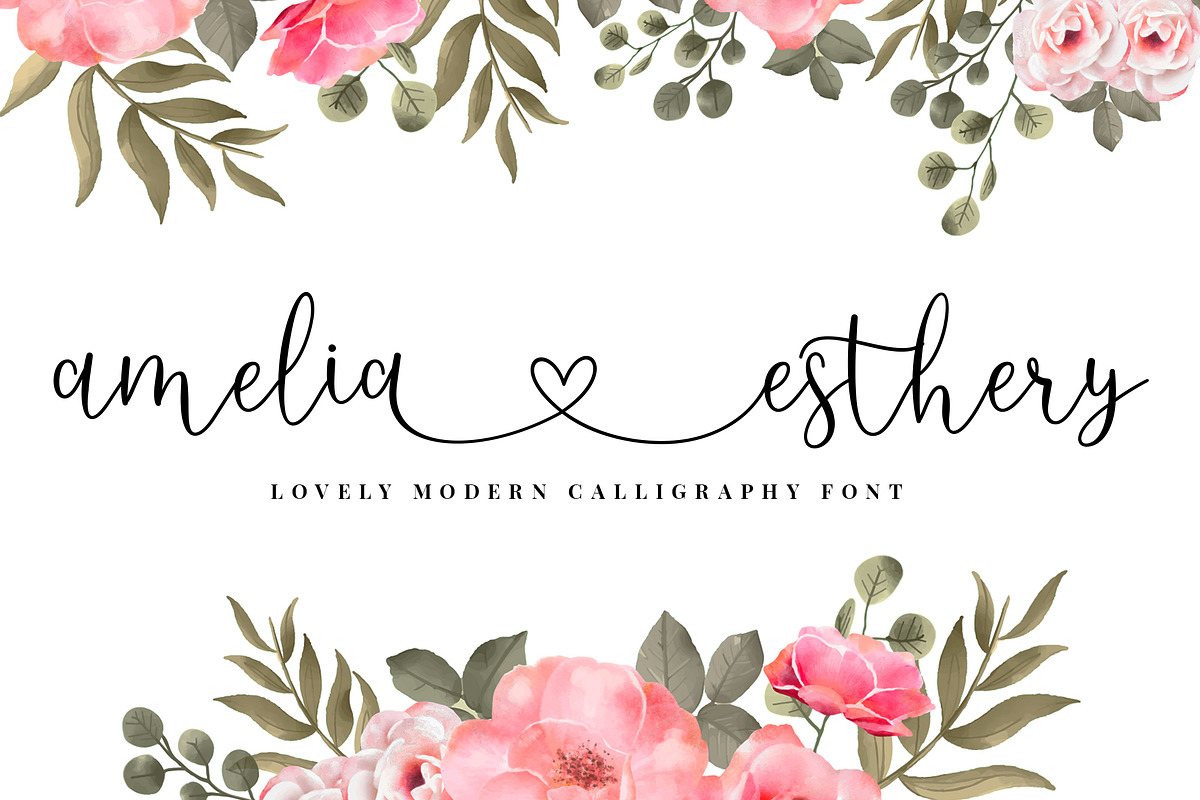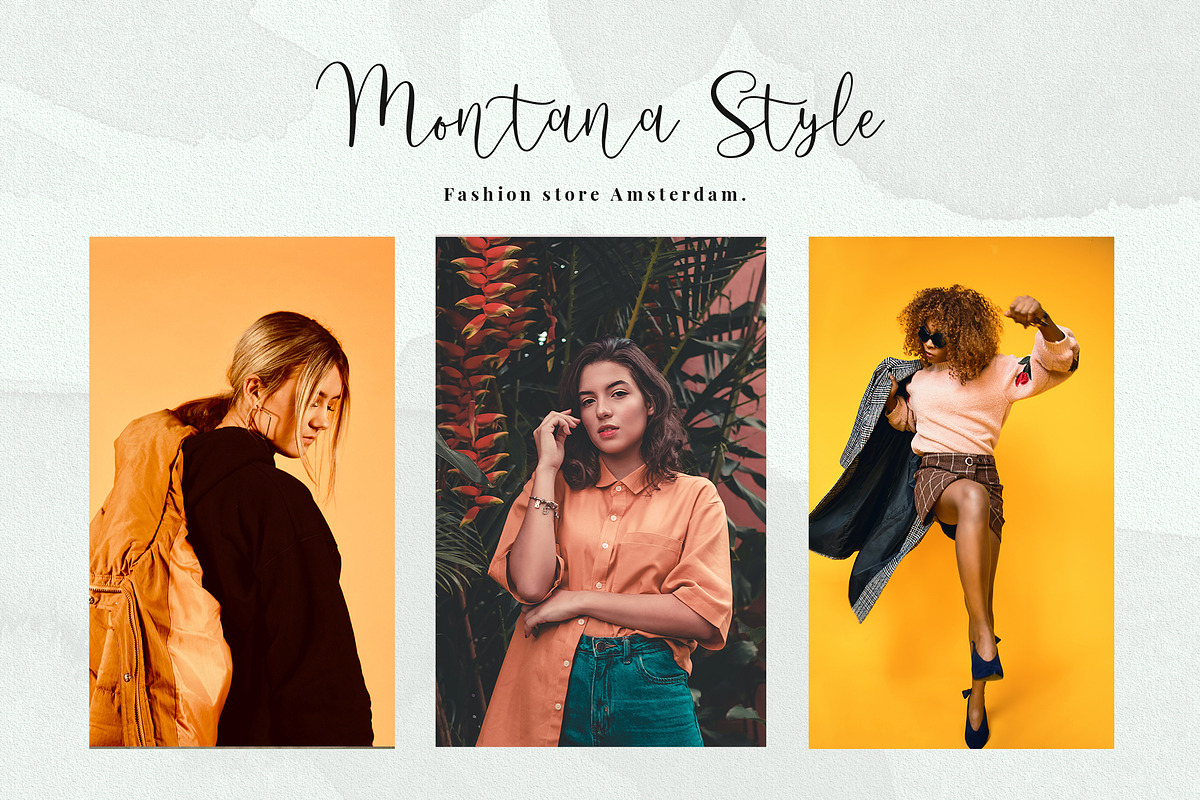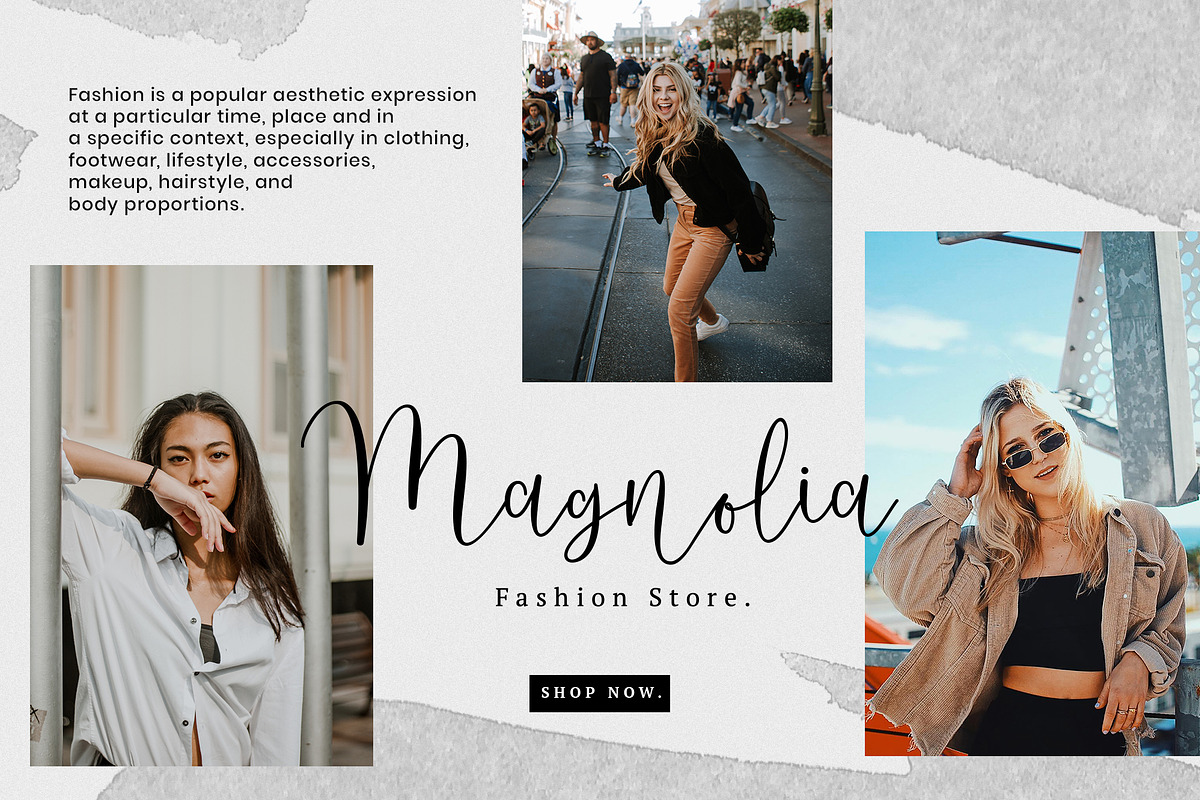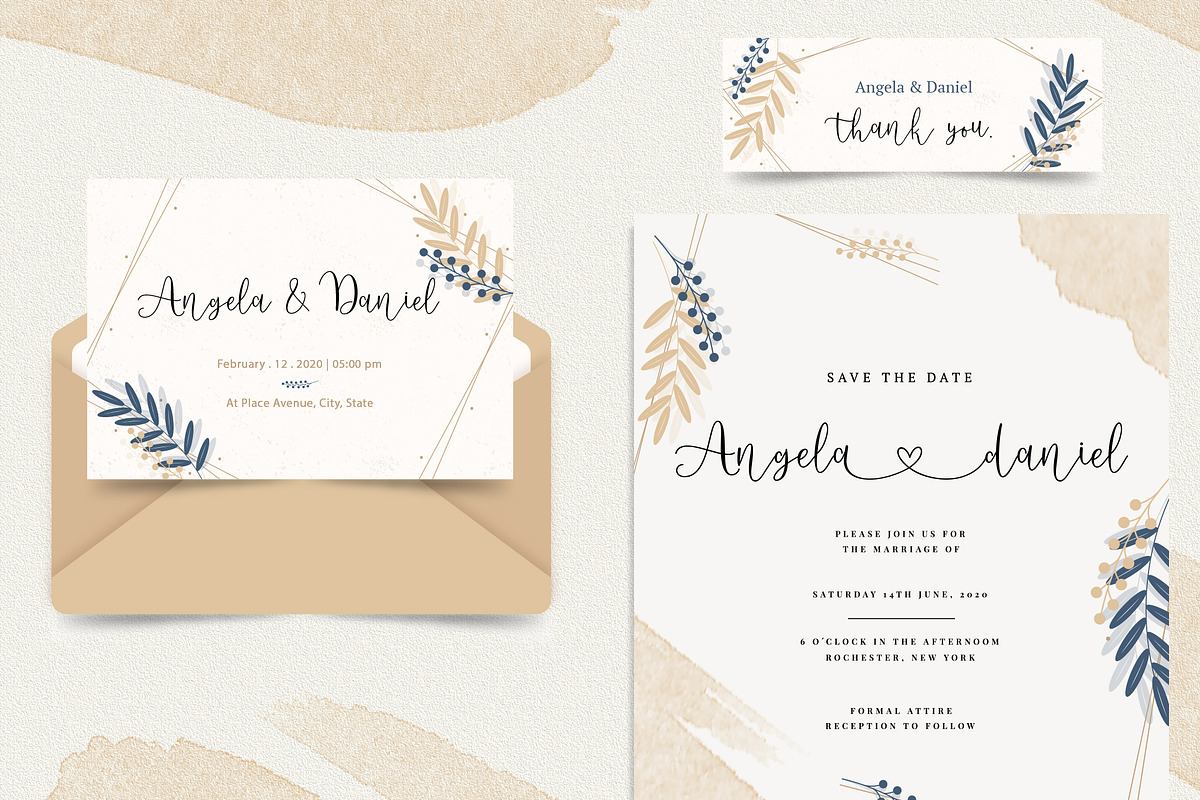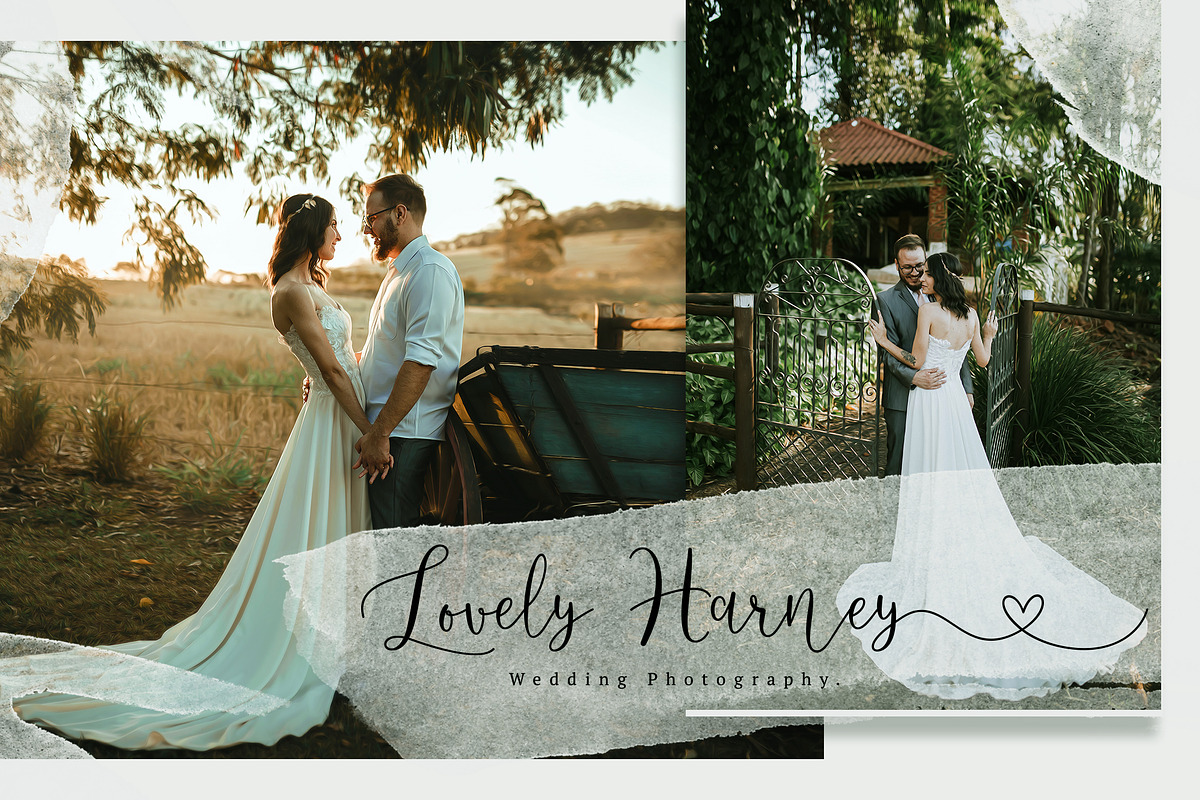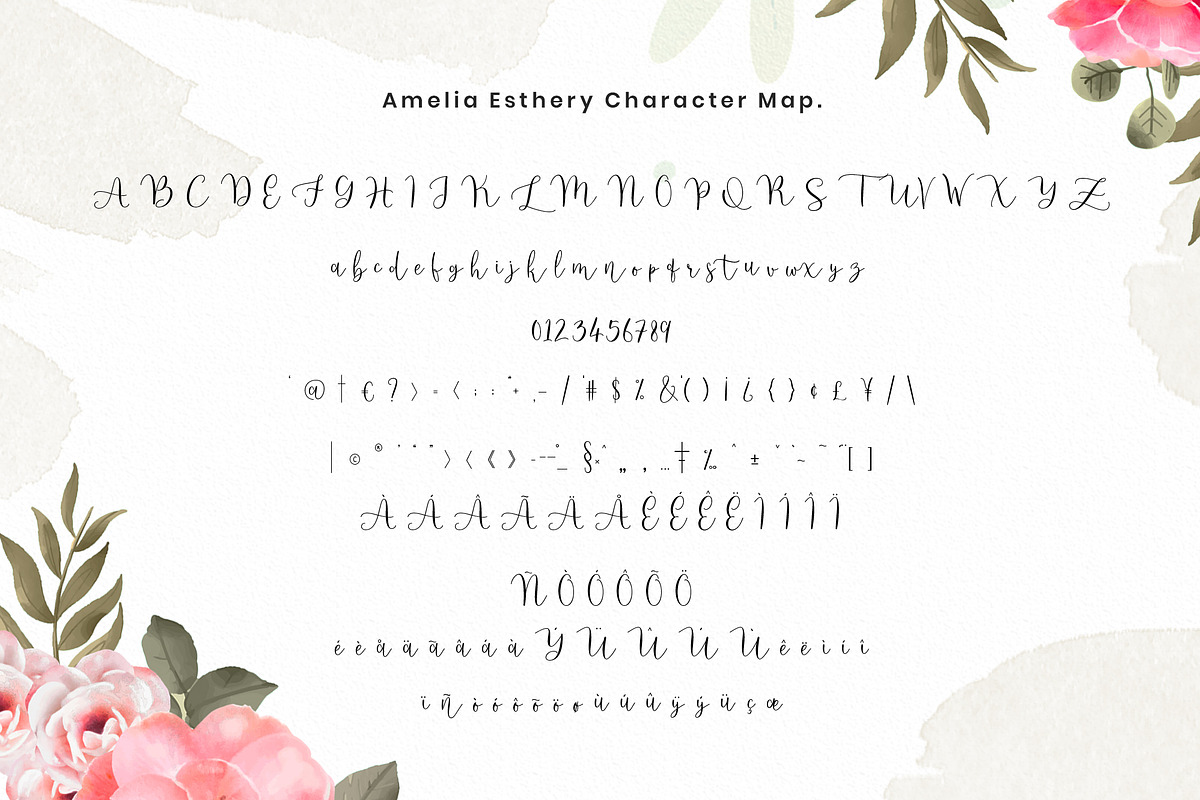
Amelia Esthery Script
Amelia Esthery is an exquisite handwritten font, masterfully designed to become a true favorite. It maintains its classy calligraphic influences while feeling contemporary and fresh. Fall in love with it and bring your projects to the highest levels! Our font will be advocates for purposes such as wedding invitations, thank you cards, quotes, greeting cards, logos, business cards, party, graduation, birthday, gathering, etc.